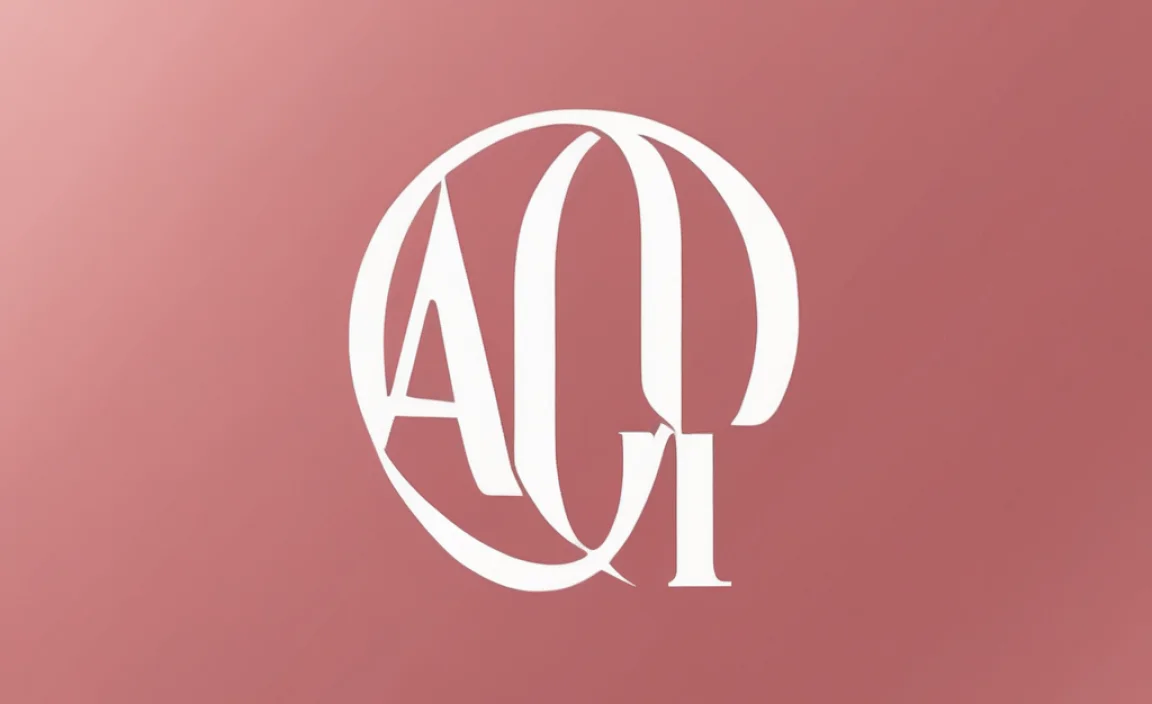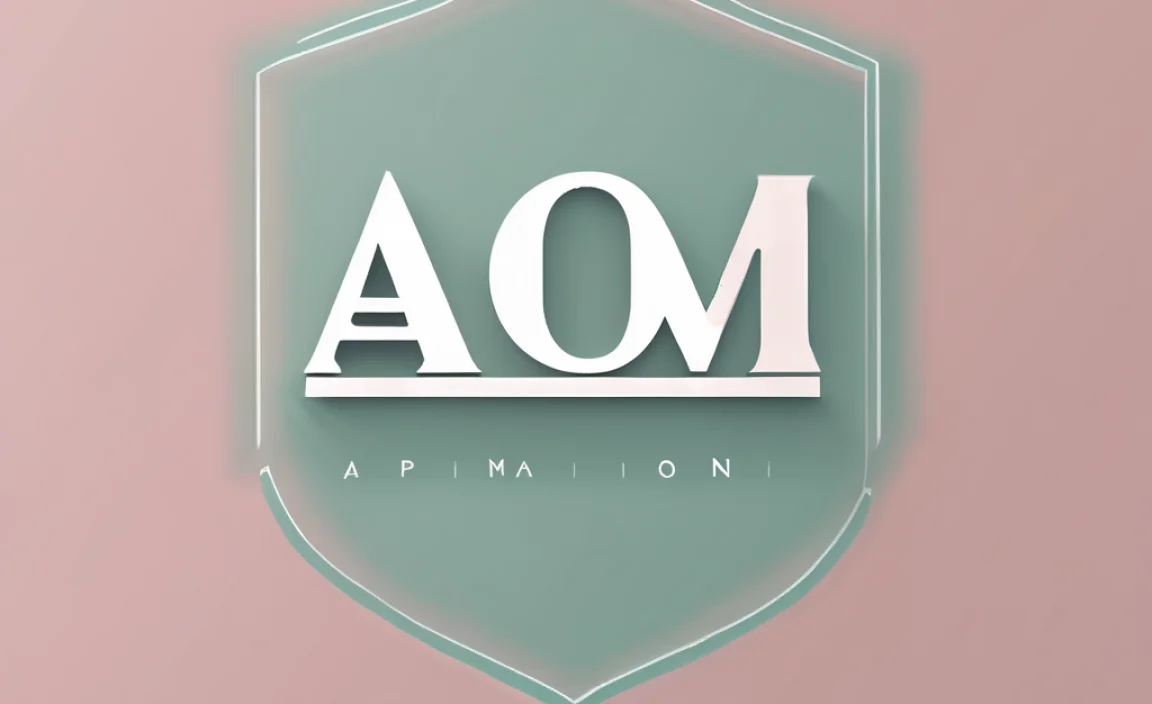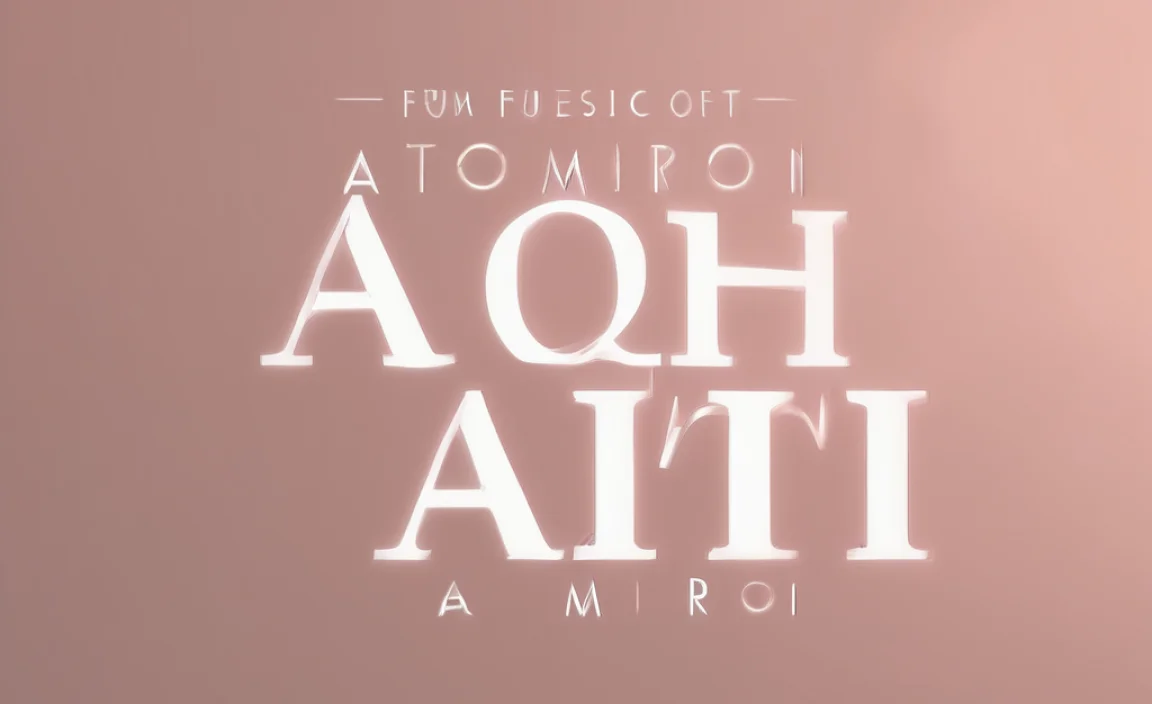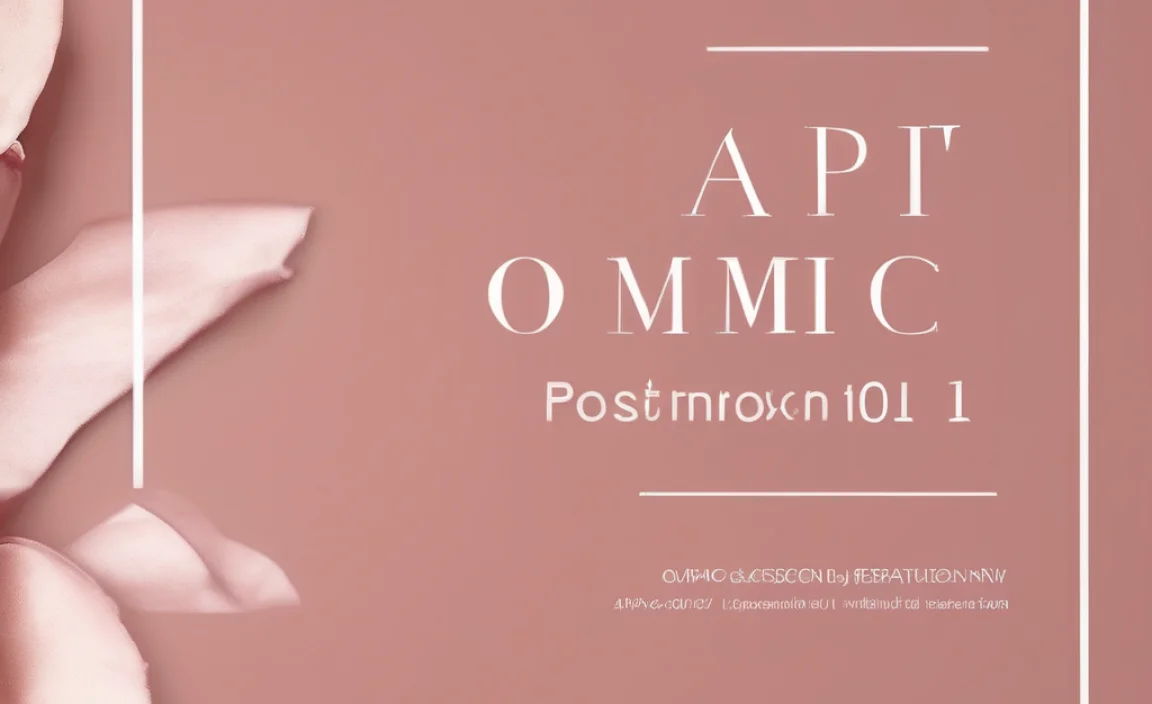
Have you ever wondered how fonts can change a message? Fonts can speak in their own way. One special font is the Alpha Omicron Pi Font. It’s from a sorority with a rich history. But why does a font matter? Imagine writing with a magic pen. The pen can say a lot with just a look. This is what fonts do. Let’s explore more about this special font.
Key Takeaways
- The Alpha Omicron Pi Font adds personality to messages.
- Fonts can change how words feel and look.
- Choosing the right font is important for design.
- Alpha Omicron Pi Font can be used for various projects.
- Different fonts can express different emotions.
Understanding Alpha Omicron Pi Font
The Alpha Omicron Pi Font is more than just letters. It represents a sisterhood. This sorority started in 1897. The founders wanted to create something special. They believed in friendship and learning. The font they use is part of their identity. It shows their values and history. When you see the font, you think of tradition and unity. But why does this matter to you?
- Alpha Omicron Pi Font reflects tradition.
- It shows unity among members.
- The font is unique and recognizable.
- It adds a personal touch to designs.
- The font is used in official documents.
- It helps convey a strong message.
- Alpha Omicron Pi Font brings a sense of belonging.
The Alpha Omicron Pi Font is special for its members. It’s like wearing a badge of honor. Every time they use it, they feel connected. It’s a reminder of their shared goals. This font isn’t just for members, though. Anyone can use it to add a touch of elegance to their work. Fun Fact or Stats : There are over 150 Alpha Omicron Pi chapters worldwide.
Why Fonts Matter in Communication
Have you ever tried reading a book with tiny letters? It’s hard, right? Fonts matter a lot in communication. They make reading easy or hard. When you choose the right font, your message shines. Imagine a party invite in crayon font. It feels fun! But if it’s in a serious font, it feels weird. This is why the Alpha Omicron Pi Font is important. It matches the mood and message. It’s fancy and traditional at the same time. This way, the message is clear and nice to read.
How Alpha Omicron Pi Font Stands Out
What makes the Alpha Omicron Pi Font special? It’s more than just letters. It has a charm. It stands out because of its history. Imagine wearing a famous brand. People notice it. This font is like that for the sorority. Its style is unique and classy. It’s not just about looks. It tells a story of friendship and sisterhood. This font makes anything you write special.
Choosing the Right Font for Your Project
Do you know how to pick the right font? It’s like choosing clothes for a party. You want to stand out but feel right. When picking a font, think of the message. Do you want it to be fun or serious? The Alpha Omicron Pi Font is great for formal messages. It adds a touch of tradition. If your project needs a classic feel, this font is perfect. It’s important to match your font to your message for the best effect.
Designing with Alpha Omicron Pi Font
Designing is like painting. You need the right tools. Fonts are one of those tools. The Alpha Omicron Pi Font is a special tool. It can make your design look elegant. This font is often used in invitations. It’s also popular in sorority newsletters. But you can use it too. Whether it’s a school project or a party invite, this font shines. It brings a sense of luxury and history to your work.
- Use it for formal events.
- Adds elegance to invitations.
- Great for newsletters and announcements.
- Makes designs look classy and traditional.
- Perfect for creating a historical theme.
- Easy to read and recognize.
- Ideal for personalizing projects.
The Alpha Omicron Pi Font makes a statement in any design. It transforms ordinary projects into something unique. When you want your work to stand out, this font does the trick. Its elegance makes it suitable for many occasions. Fun Fact or Stats : Over 1000 events use Alpha Omicron Pi designs each year.
Creating Invitations with a Personal Touch
Have you ever received a special invite? It feels great, doesn’t it? The right font can make an invite feel personal. The Alpha Omicron Pi Font is perfect for this. It adds a special charm to any invitation. Whether it’s a birthday or a wedding, this font makes it memorable. It’s like adding a signature touch. Everyone who gets the invite will feel special.
Using Fonts to Enhance Mood
Did you know fonts can set a mood? They can make you feel happy or serious. The Alpha Omicron Pi Font is elegant. It brings a sense of tradition. When you use it, your message feels important. This is why many people choose it for formal events. It adds weight to the words. If you want to make an impact, this font helps you do that.
More Than Just Letters: Fonts as Art
Question: What makes a font historical?
Answer: A historical font carries elements from the past. It’s often used by organizations or events with a rich history. These fonts are characterized by their timeless style, like the Alpha Omicron Pi Font. They connect modern users with historical traditions and values.